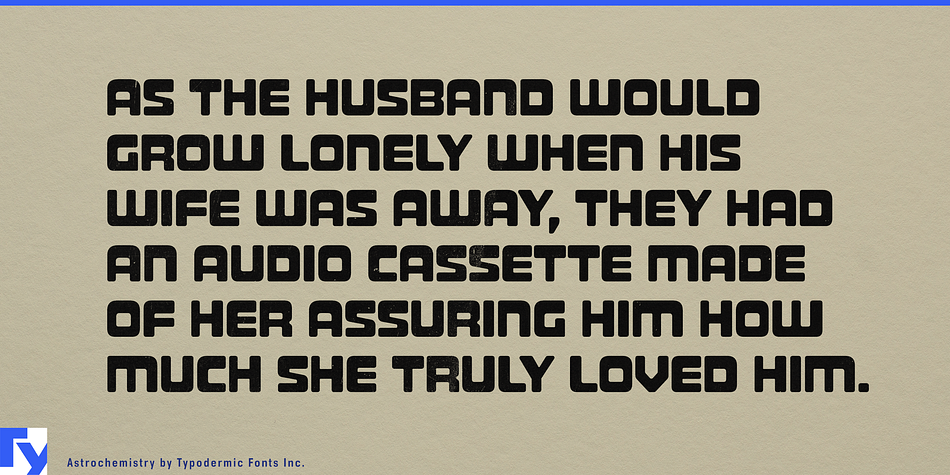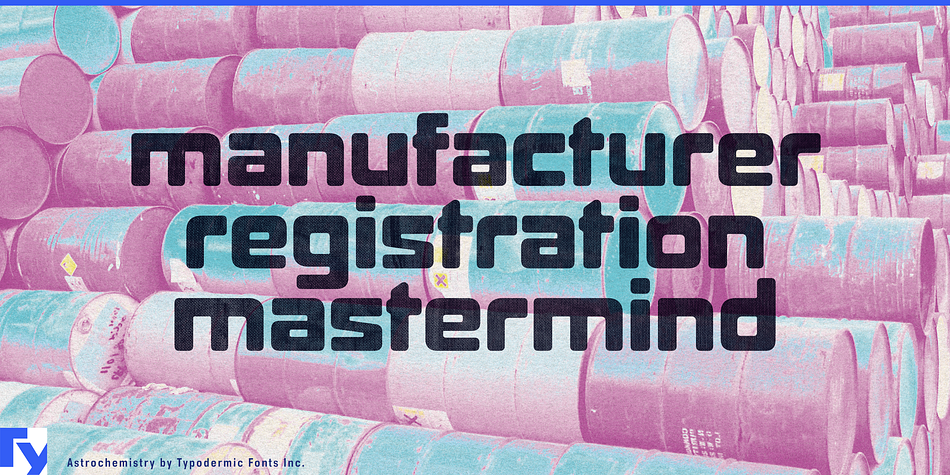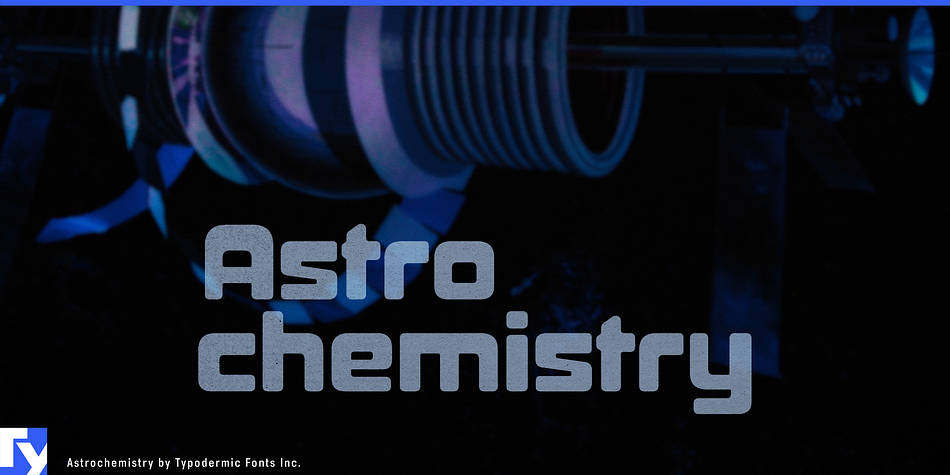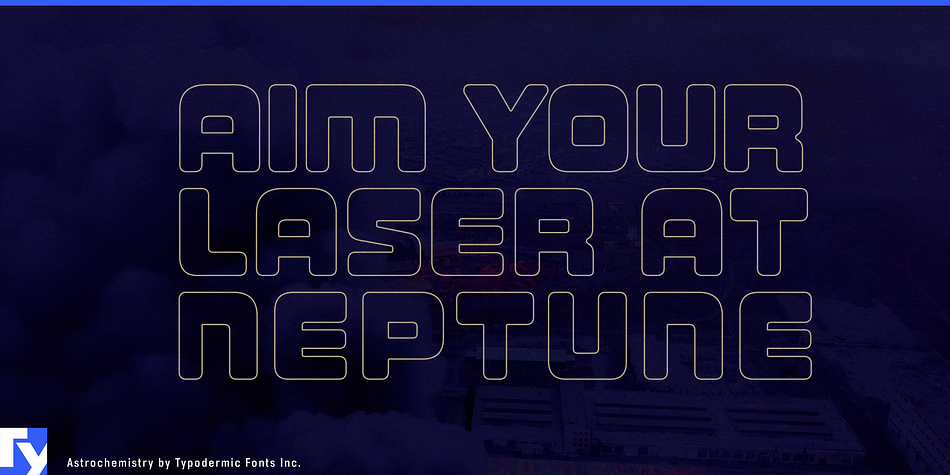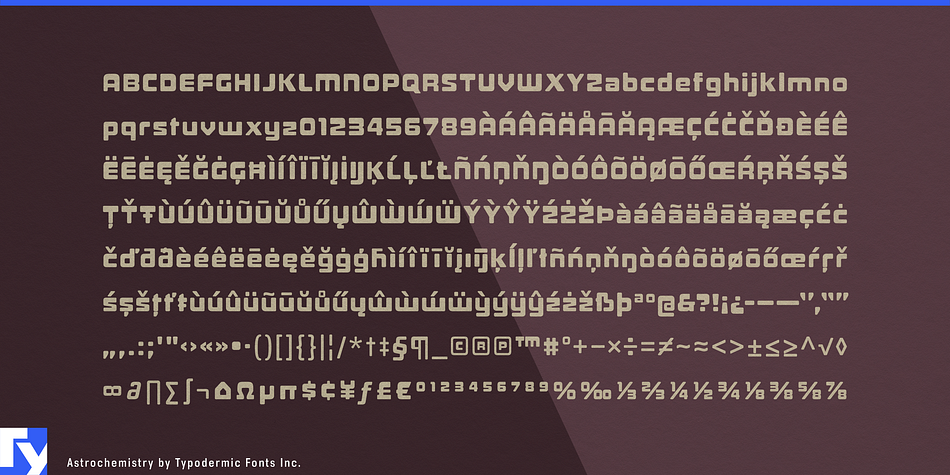
Astrochemistry is a retro font published by Typodermic Fonts Inc.
Astrochemistry is a heavy, square font which creates stunning headlines, contrasting smoothly with sans-serif body copy. It represents the state-of-the-art of cutting through complex situations & rigid systems, extending outward to influence change & in turn, helping clients envision product brands that connect with the target, build preference and win the battle at the moment of truth. You better believe it, buddy.